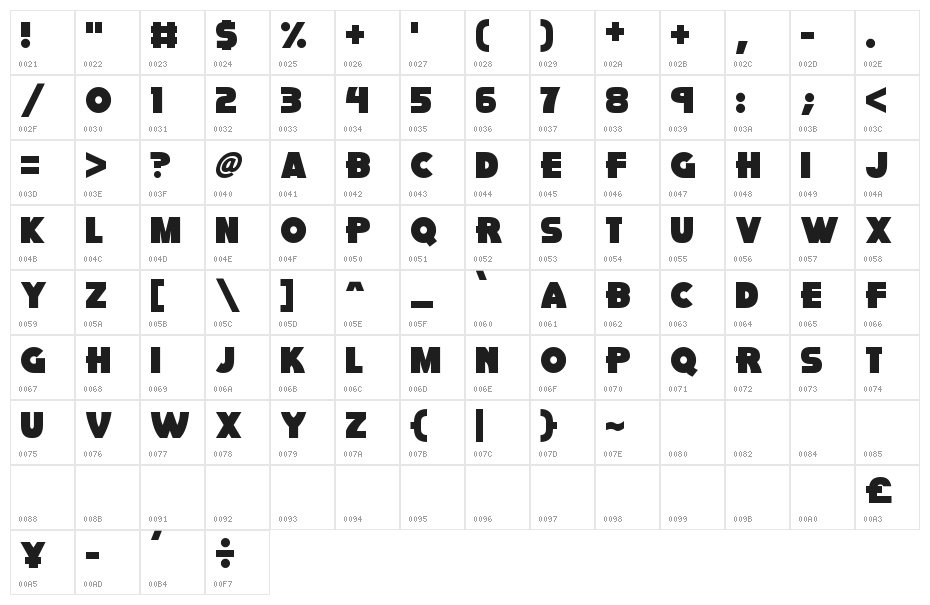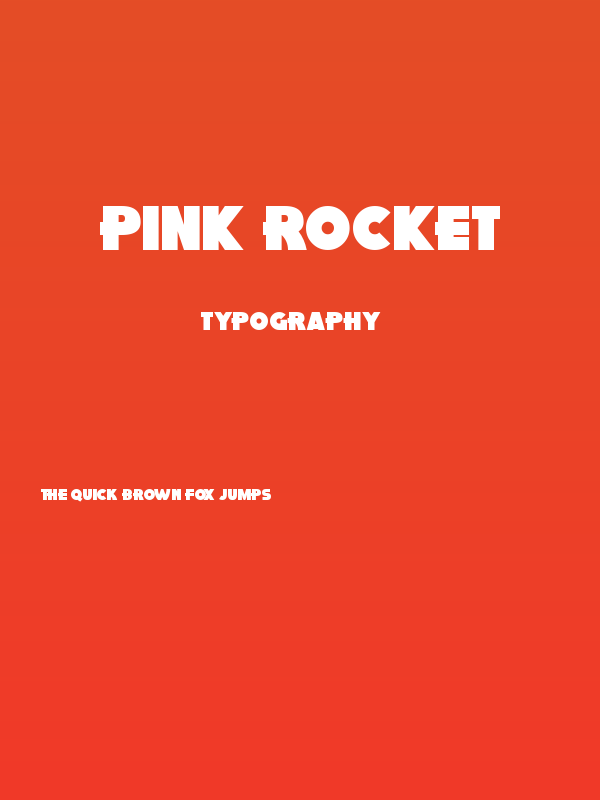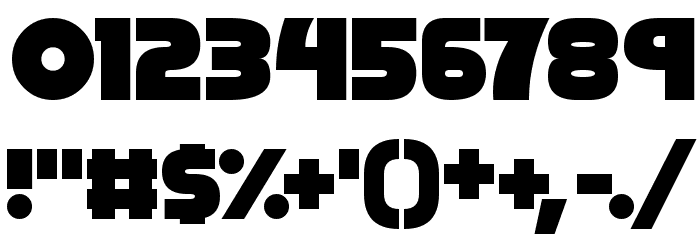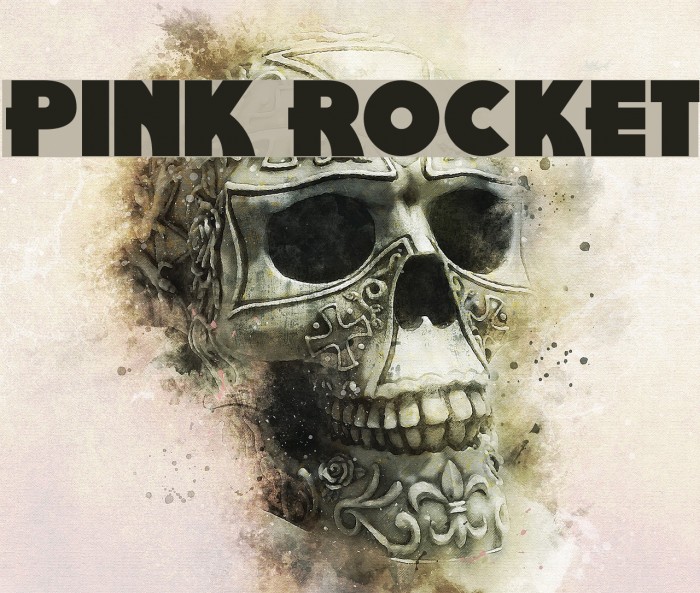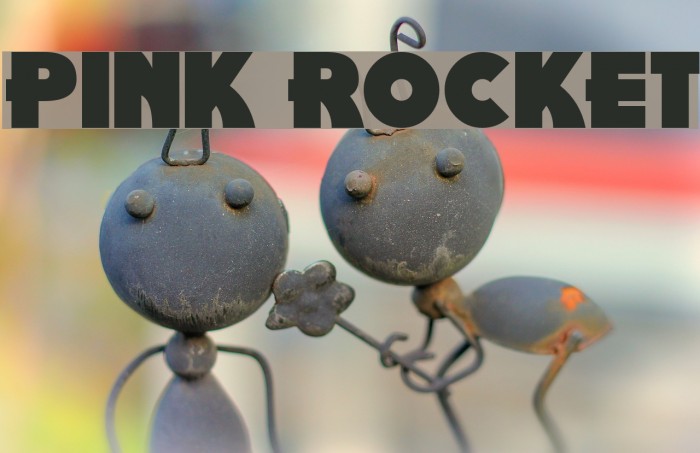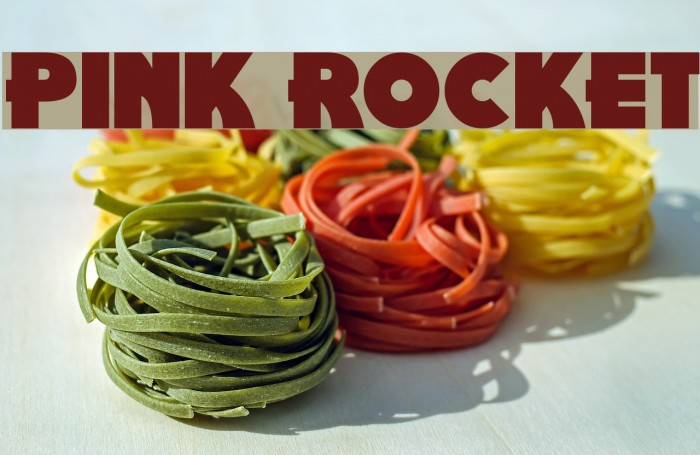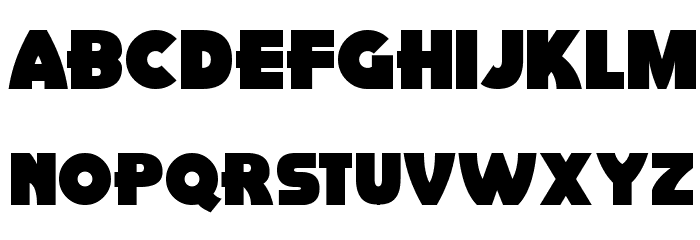
Pink Rocket Font
Pink Rocket Description
This bold and striking font features thick, blocky characters with a strong presence. The uppercase letters are uniform in height, creating a cohesive and powerful look. The numbers and special characters maintain the same boldness, ensuring consistency across all elements. The font's geometric shapes and sharp angles give it a modern and assertive appearance, making it ideal for attention-grabbing designs. Its solid structure and lack of serifs contribute to a clean and contemporary style, suitable for a variety of creative projects.
| Proposed Projects | Ideal for posters, headlines, logos, and branding materials that require a strong visual impact. |